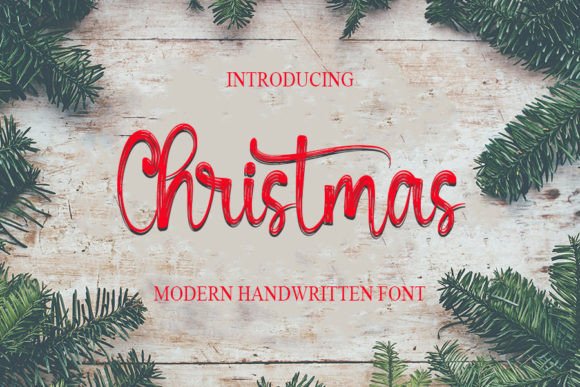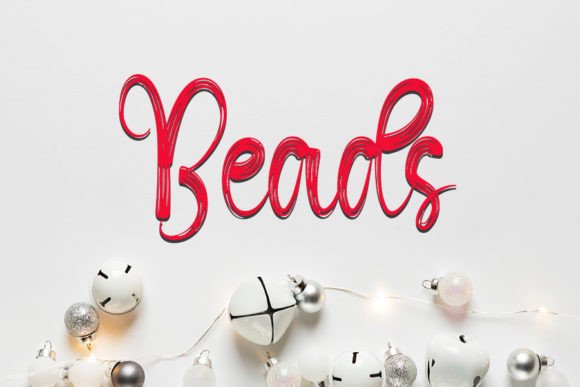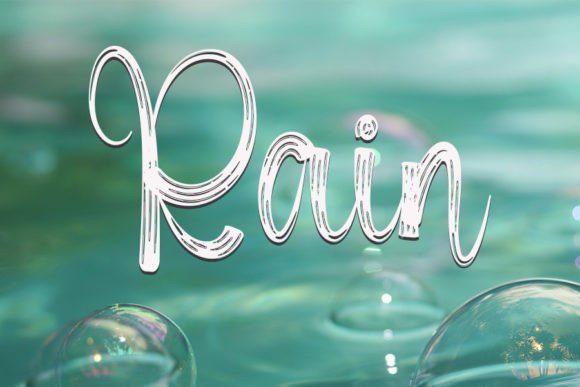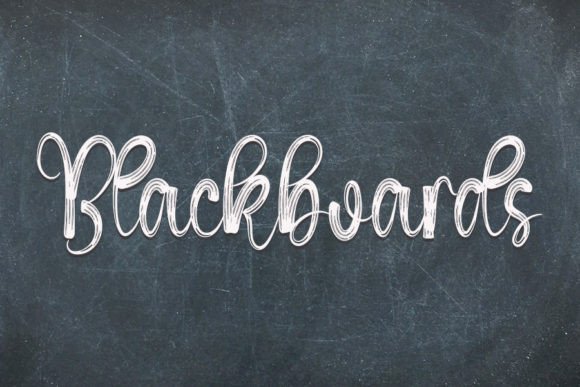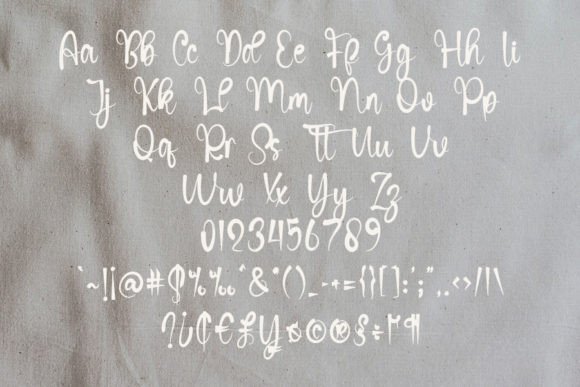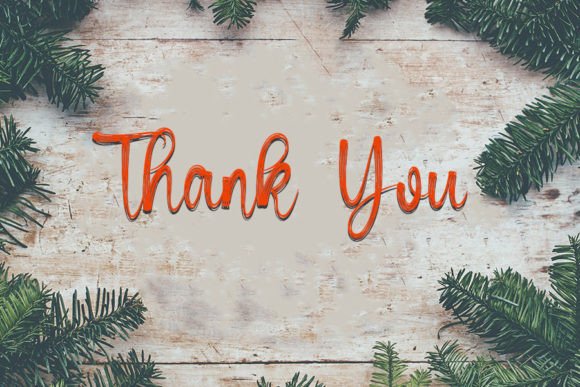
Christmas Font
Christmas font is a casual and relaxed script font designed to bring warmth and charm to your festive and creative projects. This Christmas font offers a versatile style that works beautifully on wedding invitations, stationery, social media posts, and many other holiday-themed designs. Its friendly and approachable look makes it a top choice for designers who want to add a festive touch with ease.
Versatile Christmas Font for All Occasions
The Christmas font adapts perfectly to a wide range of uses, from elegant wedding invitations to playful social media graphics. This font’s casual script style gives your projects a warm and inviting personality, helping you create heartfelt designs that resonate with your audience during the holiday season and beyond.
Ideal for Wedding Invitations and Stationery
When using Christmas font for wedding invitations and stationery, it enhances the overall design with its flowing, relaxed letters. It balances sophistication and friendliness, making your invitations stand out and feel more personal. The Christmas font’s smooth curves and natural flow make every card look unique and crafted with care.
Perfect for Social Media and Branding
Christmasfont also works wonderfully for digital content like social media posts and branding materials. Its versatile design helps brands convey a festive, friendly message that connects with audiences, making it a reliable choice for any creative professional during the holiday season.
Why Choose Christmas Font?
Choosing Christmasfont means adding a casual, stylish script to your design toolkit. This font brings timeless elegance and cozy charm to your projects, whether printed or digital. Use Christmasfont to create designs that truly celebrate the spirit of the season with warmth and personality.